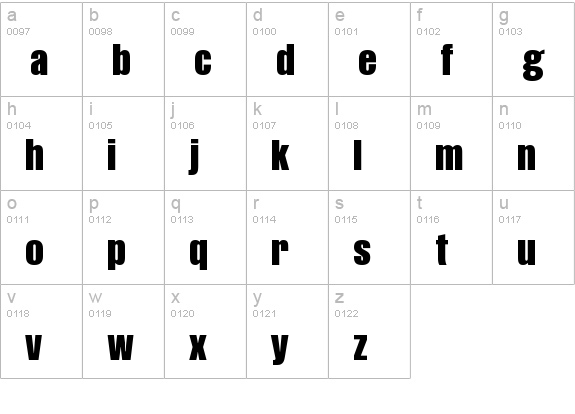
PFFusionSansPro-Black Font Details
PFFusionSansPro-Black is a maximum-weight, dramatic variant in the PFFusionSansPro typeface family \xE2\x80\x94 well suited to maximum-impact headlines, posters, and packaging.
PFFusionSansPro-Black is a bold and powerful font that commands attention with its strong presence and sleek design. The thick strokes and clean lines of this typeface make it perfect for headlines, branding, and other large-scale projects where impact is key. Its modern aesthetic exudes confidence and sophistication, making it a versatile choice for a wide range of design applications. Best of all, PFFusionSansPro-Black is available for free download at FontsMarket.com. This means you can easily access and use this striking font in your projects without any cost, allowing you to elevate your designs with professional quality typography without breaking the bank. Don't miss out on this opportunity to enhance your creative work with the bold and beautiful PFFusionSansPro-Black font today!